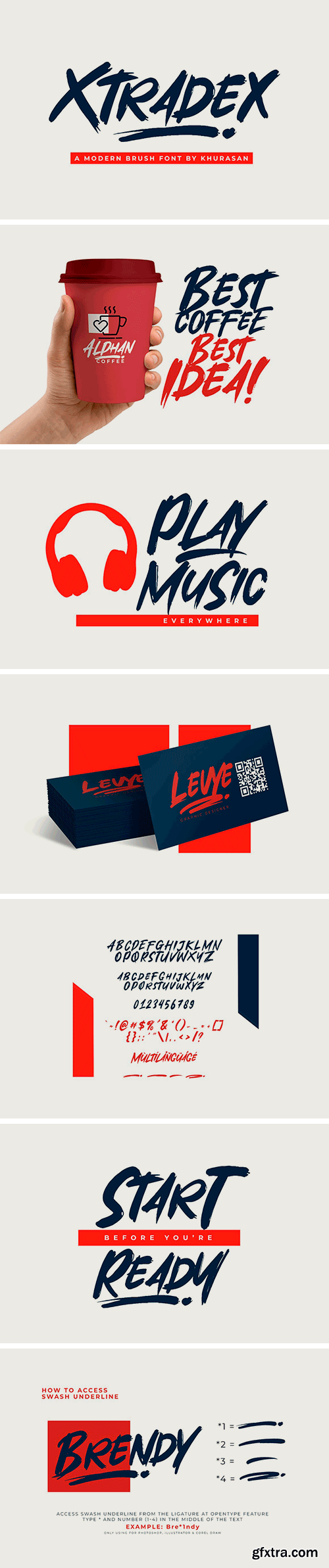
CreativeMarket - Xtradex Brush Font
Xtradex is a modern brush font. Xtradex font suitable for logo, branding, greeting card, poster and any design that you create…!